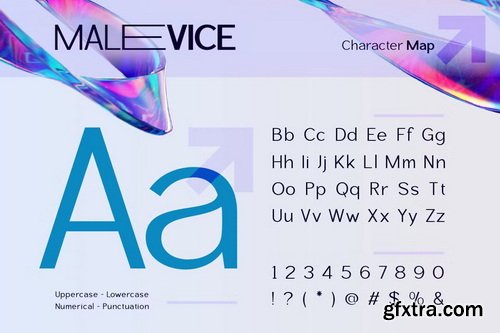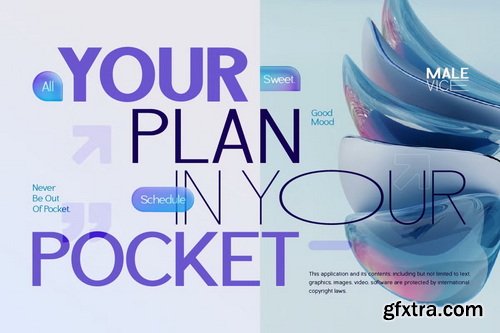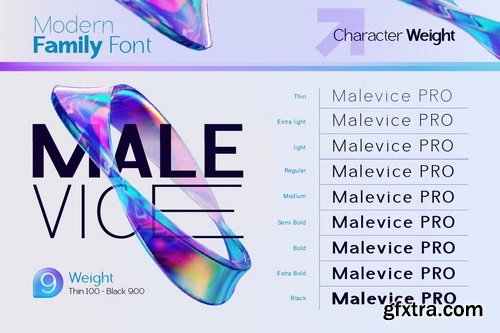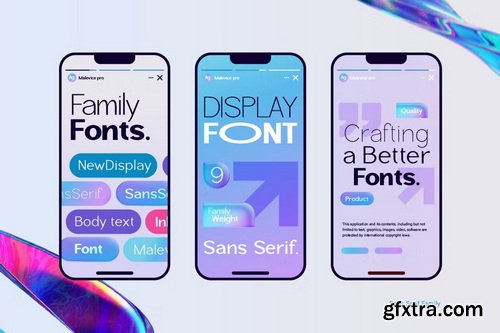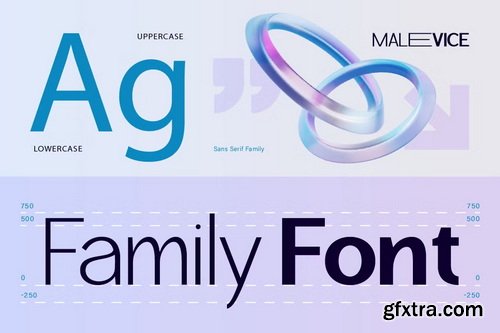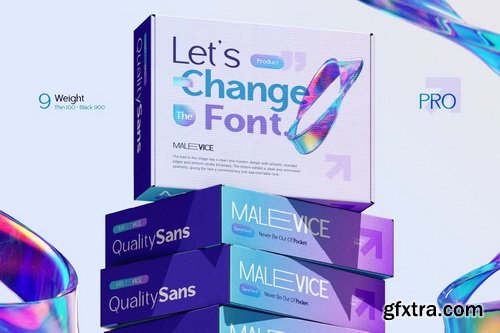
Introducing Malevice Pro, a sans-serif font that perfectly blends modern style and flexibility. With its clean, balanced, and professional look, this font is a great choice for all kinds of design projects. Malevice Pro comes in 9 weights, from Thin to Black, giving you the flexibility to create anything from sleek and minimal designs to bold and powerful visuals. Plus, it features unique alternates that make your designs stand out while keeping them easy to read.